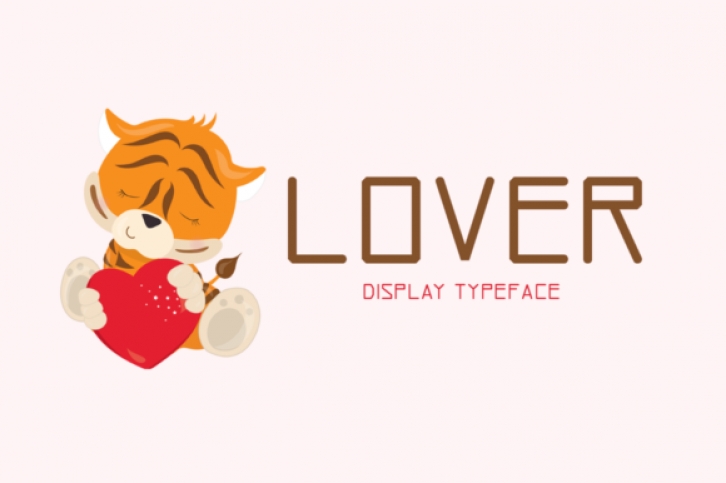
Lover is a refined display font. This versatile font has a wide range of applications ranging from beautiful stationery to product packaging, and is guaranteed to add a delicate touch to your next design.